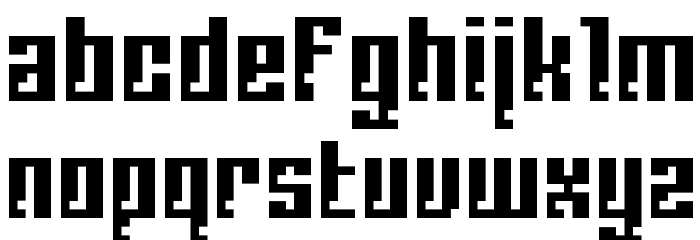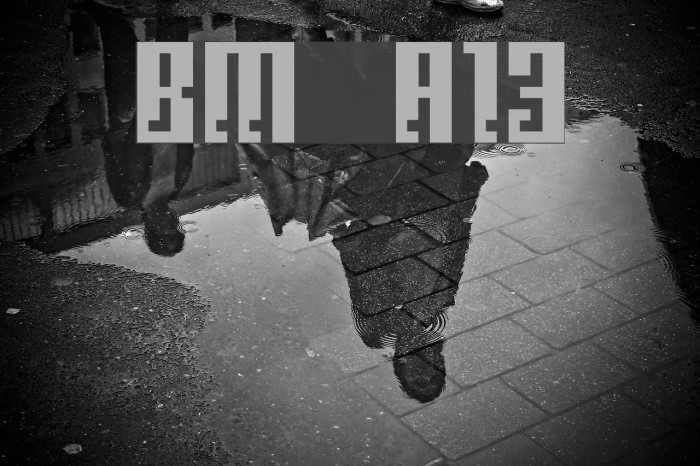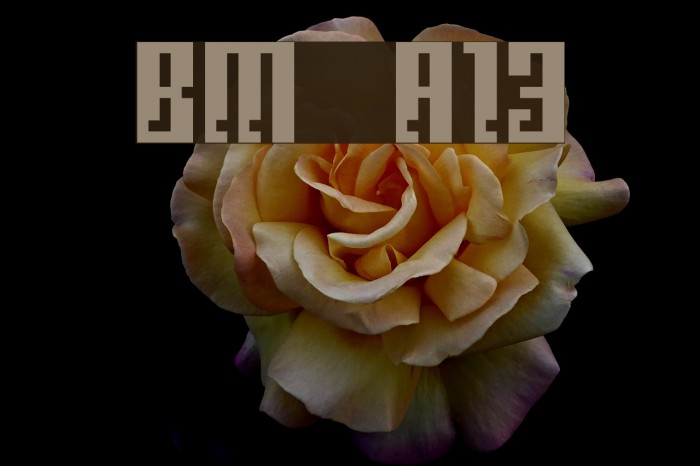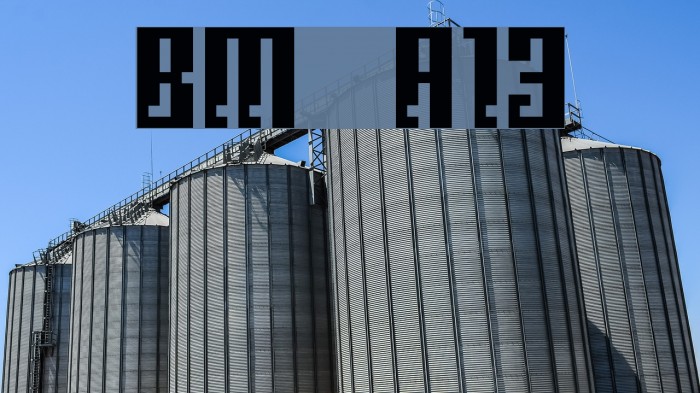
BM corrode A13 Font
This font features a bold, geometric design with a strong presence. The characters are constructed with sharp angles and a blocky appearance, giving it a modern and industrial feel. The uppercase and lowercase letters maintain a consistent height, while the numerals and special characters follow the same angular style. The font's structure is reminiscent of stencil or digital typefaces, making it suitable for impactful and attention-grabbing designs. Its unique style is ideal for projects that require a bold statement.
A bold, geometric font with a modern, industrial feel.
- Proposed Projects: Ideal for posters, logos, video game graphics, and branding materials that require a strong, modern aesthetic.